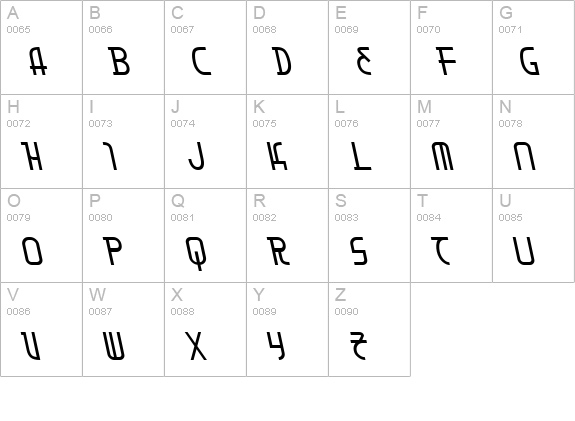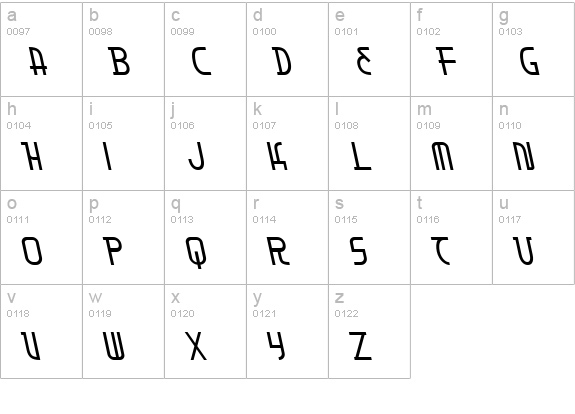
Moon Dart Leftalic font is a stylish and modern typeface that exudes elegance and sophistication. With its sleek lines and distinctive curves, this font is perfect for adding a touch of class to any design project. The italicized version of Moon Dart adds a dynamic and energetic flair to your text, making it stand out from the crowd. Best of all, Moon Dart Leftalic font is available for free download at FontsMarket.com. Whether you're working on a professional presentation, a creative project, or simply want to elevate your social media posts, this font is a versatile choice that will enhance your designs. Don't miss out on the opportunity to elevate your typography with Moon Dart Leftalic font - download it today and see the difference it can make!